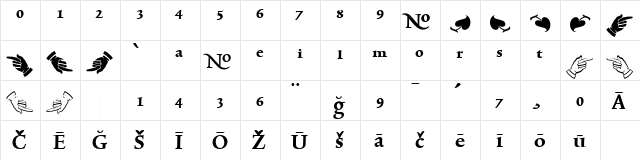
TriniteNo3 Bold
Design Context for TriniteNo3 Typeface
TriniteNo3 takes a measured approach to typography — its balanced proportions and neutral character make it a reliable workhorse for both digital and print work. The heavy weight commands attention and anchors typographic hierarchies.